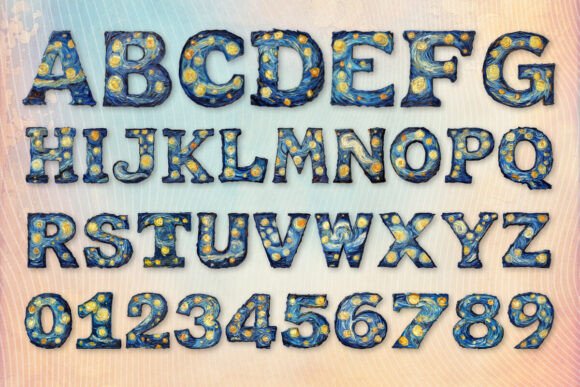
Starry Night Van Gogh Font
Immerse yourself in artistry and grace with our Starry Night Van Gogh Alphabet Font. Drawing inspiration from Van Gogh’s legendary oil painting style, the font is more than just a simple set of characters, it’s a tribute to one of the world’s greatest artists. Featuring a complete ensemble of 36 distinctive characters including 26 letters and 10 numbers, each lovingly crafted in the unmistakable rich and textured style of Van Gogh. Evocative of star-studded skies swirling over quiet towns, this font captivates, fascinates and leaves a lasting impression, just like its namesake. Step into the artistic realm with the Starry Night Van Gogh Alphabet Font.